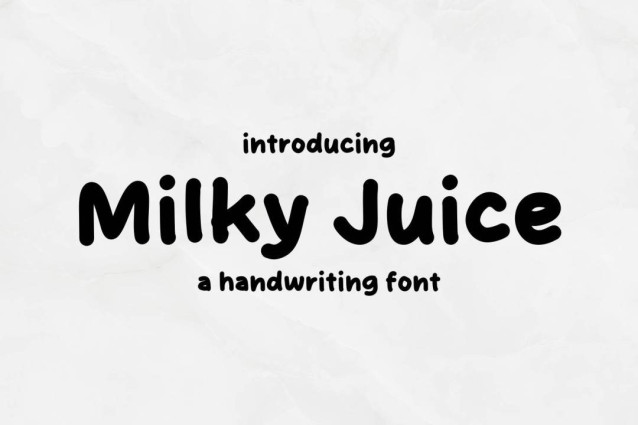
Milky Juice Font
Milky Juice Font a sweet and friendly handwritten font. Cute and fun, this font is ideal for writing wedding invitations, cards, or any other design that might need a fun touch!